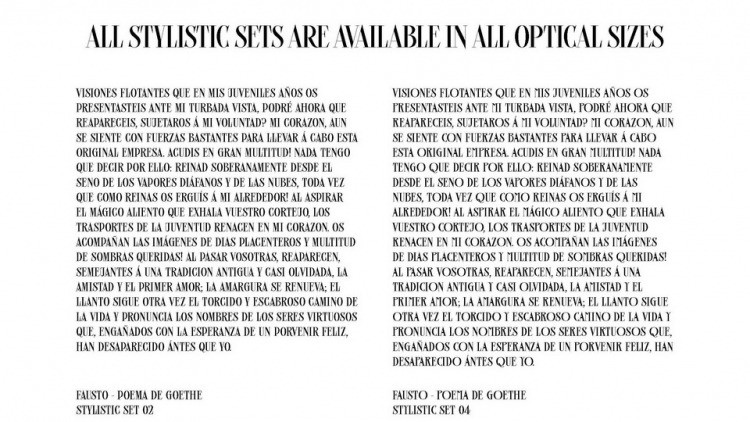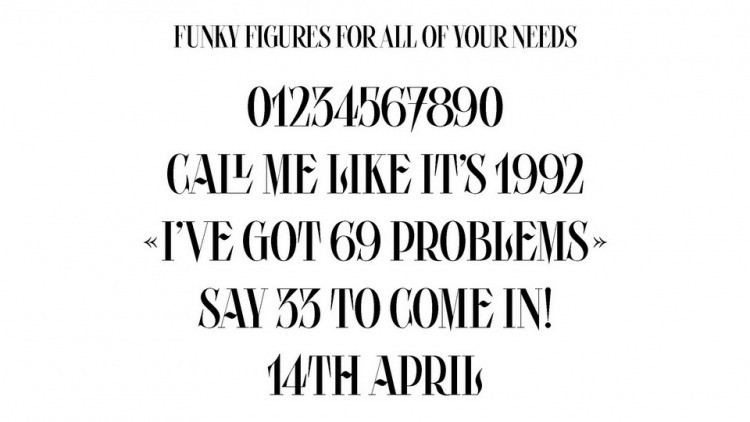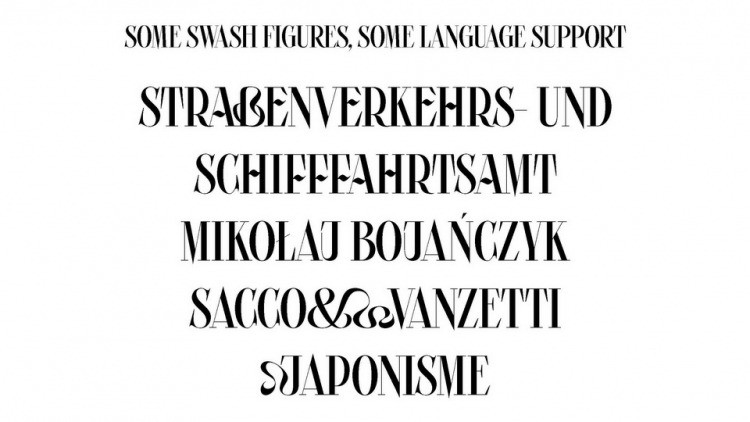
Picaflor Serif Font
This is a stylish and bold serif font. This versatile script font has a wide spectrum of applications ranging from greeting cards to headlines and is guaranteed to add a romantic feel to your next project.